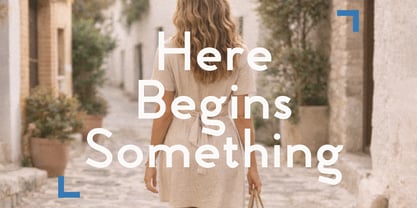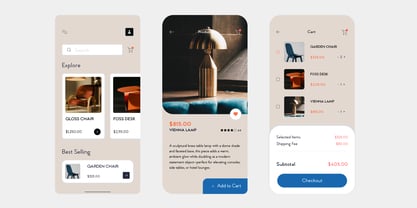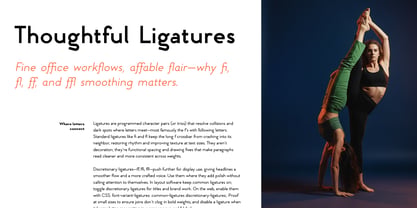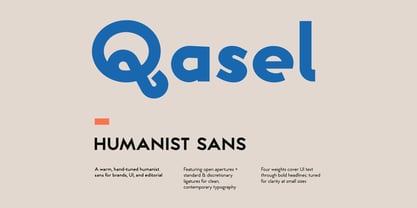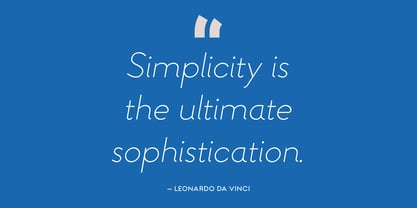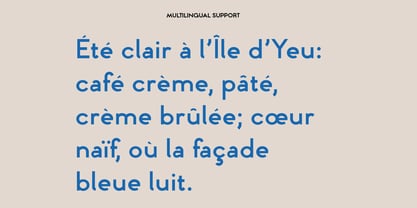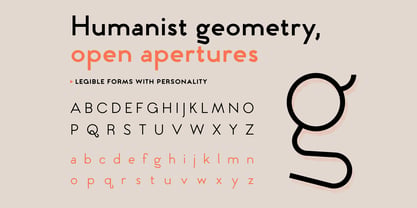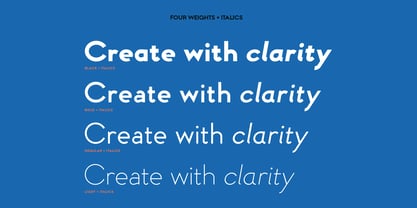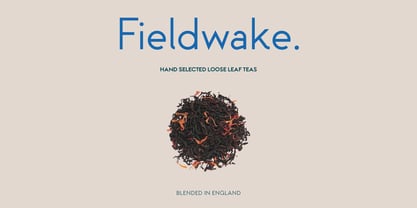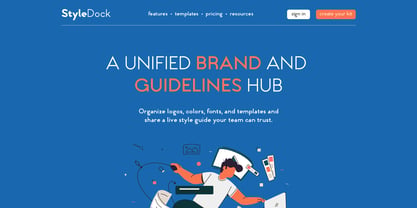
Qasel Sans
by Elyas Beria
The Qasel Sans Font Family was designed by Elyas Beria and published by Elyas Beria. Qasel Sans contains 8 styles and family package options. More about this family
Qasel Sans is a warm humanist sans serif font family designed for clear, contemporary typography across branding, logo design, editorial layouts, websites, UI design, packaging, and interface design.
Built with open apertures, balanced proportions, and subtle handcrafted details, Qasel Sans works as a clean sans serif with a warmer, more human voice. It is a practical choice for brand identities, modern websites, mobile apps, product packaging, magazine layouts, presentations, social media graphics, and professional design systems.
The family includes four weights — Light, Regular, Bold, and Black — each with matching italics. The upright styles provide a stable, readable foundation for text and interface typography, while the italics add movement and emphasis for quotes, captions, headlines, and expressive brand moments.
Qasel Sans includes uppercase and lowercase characters, numerals, punctuation, multilingual Latin support, currency symbols, fractions, standard ligatures, and discretionary ligatures for polished display typography, logo concepts, and custom-feeling headlines.